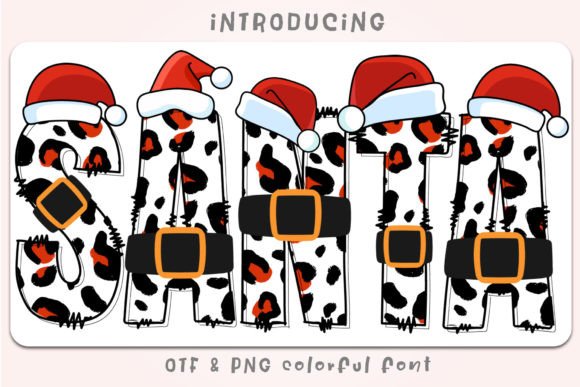
Santa Leona Font: A Playful and Festive Choice for Your Christmas Projects
Are you looking for a font that embodies the playfulness and authenticity of the holiday season? Look no further than the Santa Leona Font, a creative leopard print color font with a lovely Santa hat. This unique font is perfect for any Christmas project, children’s activity, or school project that requires a touch of festive fun.
What Makes Santa Leona Font So Special?
- Unique Design: The Santa Leona Font features a one-of-a-kind leopard print design with a Santa hat, making it a standout choice for any project.
- Playful and Authentic: This font embodies the playfulness and authenticity of the holiday season, making it perfect for Christmas projects, children’s activities, and school projects.
- Color Font: The Santa Leona Font is a color font (Opentype-SVG), allowing for vibrant and colorful text that will grab attention.
The Santa Leona Font is a unique and festive choice for any Christmas project, children’s activity, or school project. With its playful and authentic design, this font is sure to add a touch of holiday cheer to your creations. Whether you’re a designer, teacher, or parent, the Santa Leona Font is a great addition to your font library.